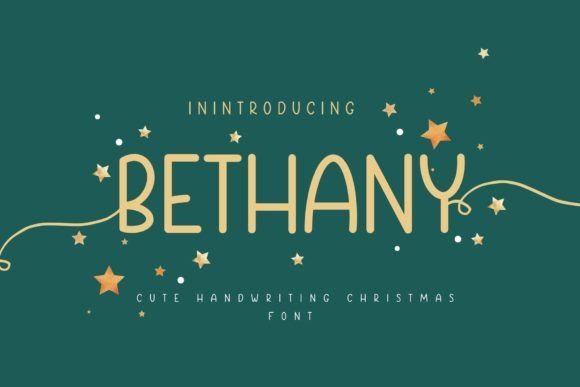
Introducing Bethany Font, the ultimate script font that embodies the spirit of the holiday season in the most delightful and whimsical way. Created by the renowned MyFontsShop, this font is a must-have for anyone looking to elevate their Cricut Writing game and bring their projects to life.
With its cute and handwritten style, Bethany captures the essence of Christmas, instantly transporting you to a world of festive cheer and wonder. Its playful curves and charming strokes add a touch of warmth and personality to your text, making it perfect for holiday cards, gift tags, and all your seasonal projects.
Imagine the joy and excitement your loved ones will feel when they receive a holiday card adorned with Bethany Font. The handwritten style exudes a sense of thoughtfulness and care, making each word feel extra special. It's the perfect way to spread holiday cheer and make lasting memories.
But Bethany Font isn't just limited to holiday projects. Its versatility allows you to use it for a wide range of creative endeavors. Whether you're designing invitations for a winter wedding, crafting personalized ornaments, or creating eye-catching social media graphics, Bethany Font will be your go-to choice.
Not only does Bethany Font bring a touch of festive charm, but it also guarantees ease of use. Its user-friendly nature ensures that even beginners can create stunning designs effortlessly. Say goodbye to the hassle of complicated design software and hello to a seamless and enjoyable creative process.